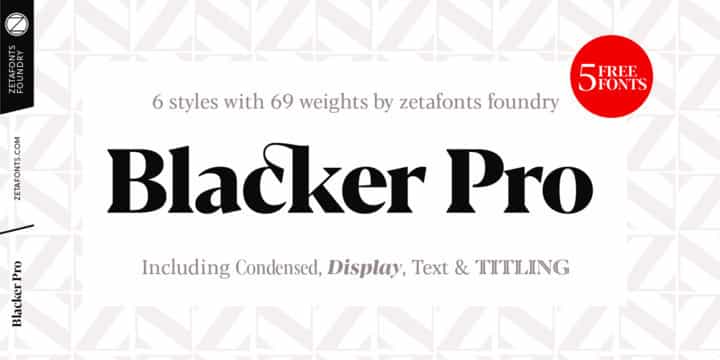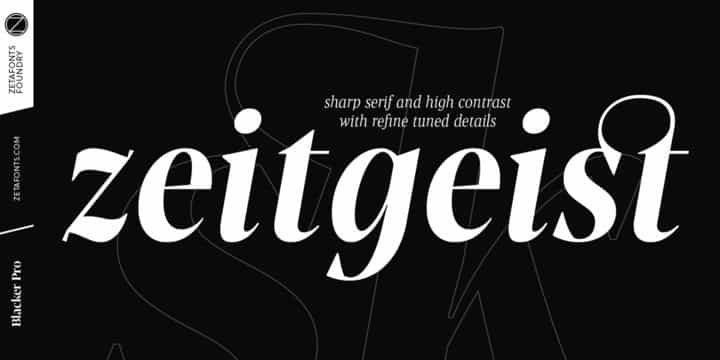
Blacker Pro Font is an updated and expanded version of Cosimo Lorenzo Pancini and Andrea Tartarelli’s 2017 Family of Wedge Serifs Blacker was designed as a variation on what Jeremiah Shoaf has defined as the “evil serif” style: regardless of whether the typefaces contain high contrast, modern or oldstyle serif proportions, or sharp triangular serifs resembling blades. Because of its super-bold contrast design, Blacker can be seen as having some similarities with didone typefaces. Blacker was developed utilizing two subfamilies of optical design.